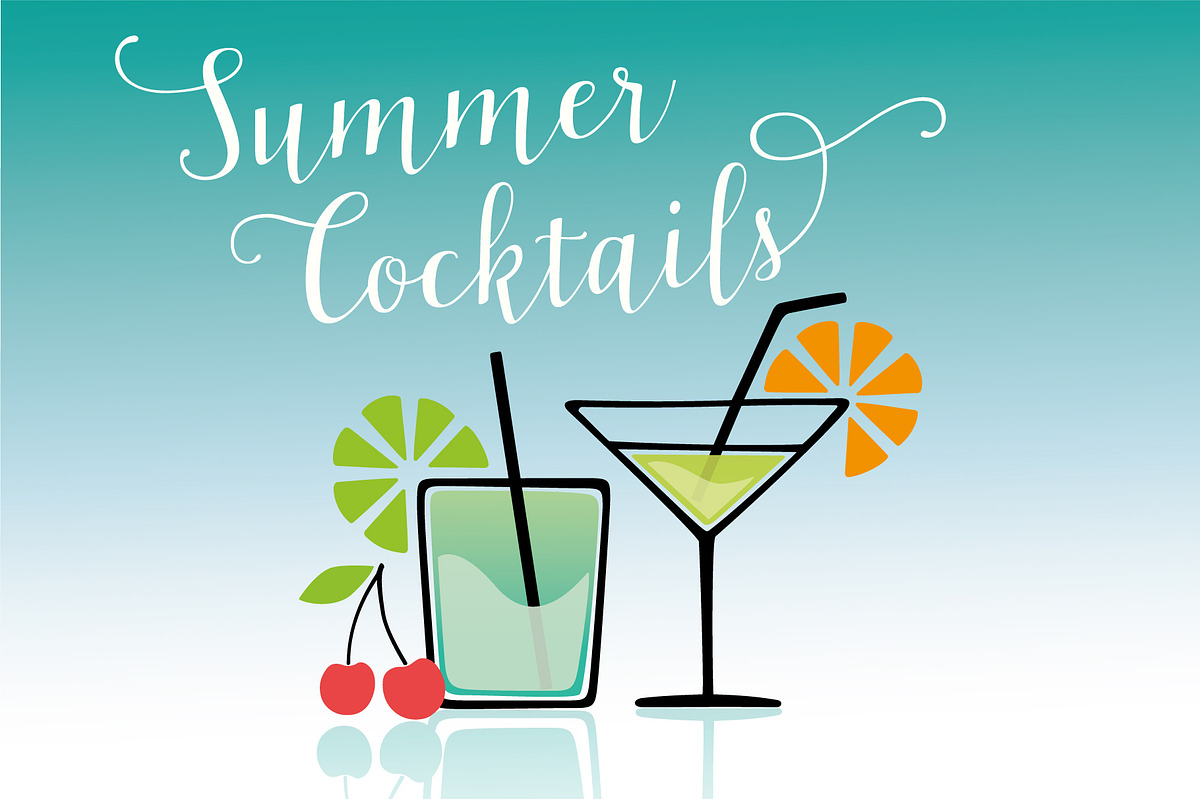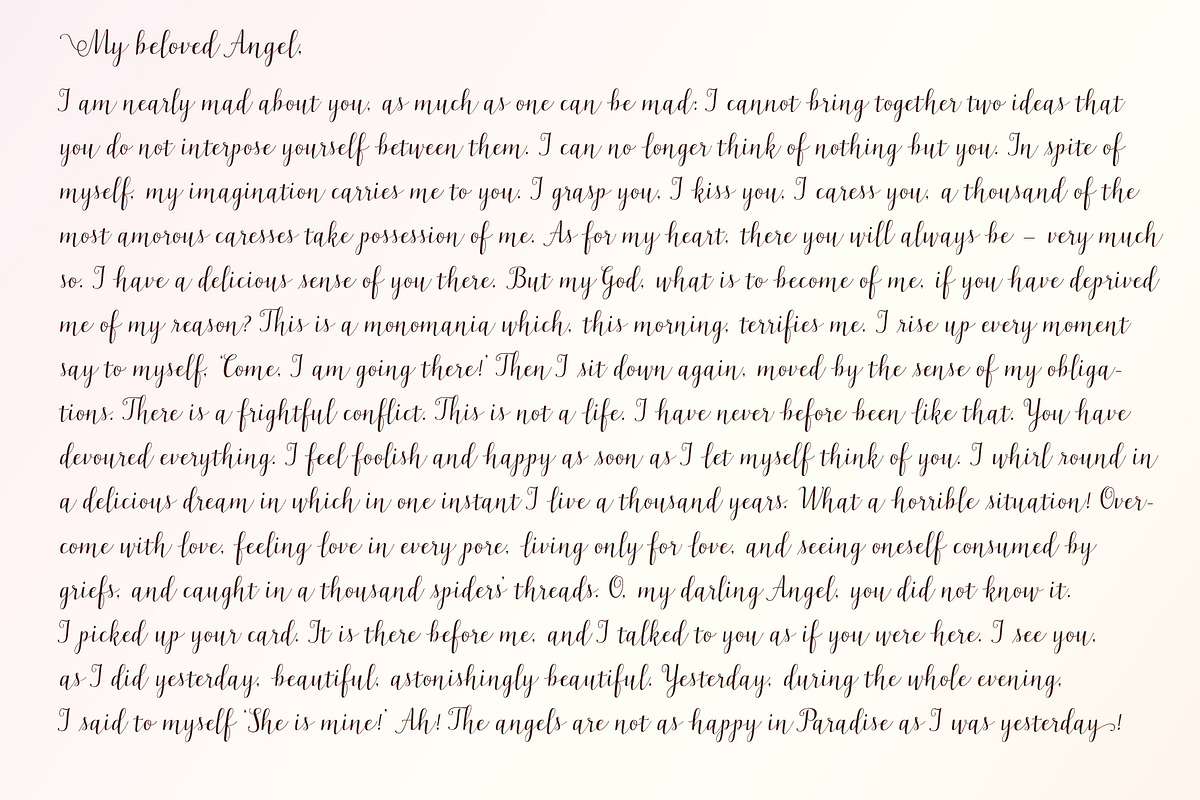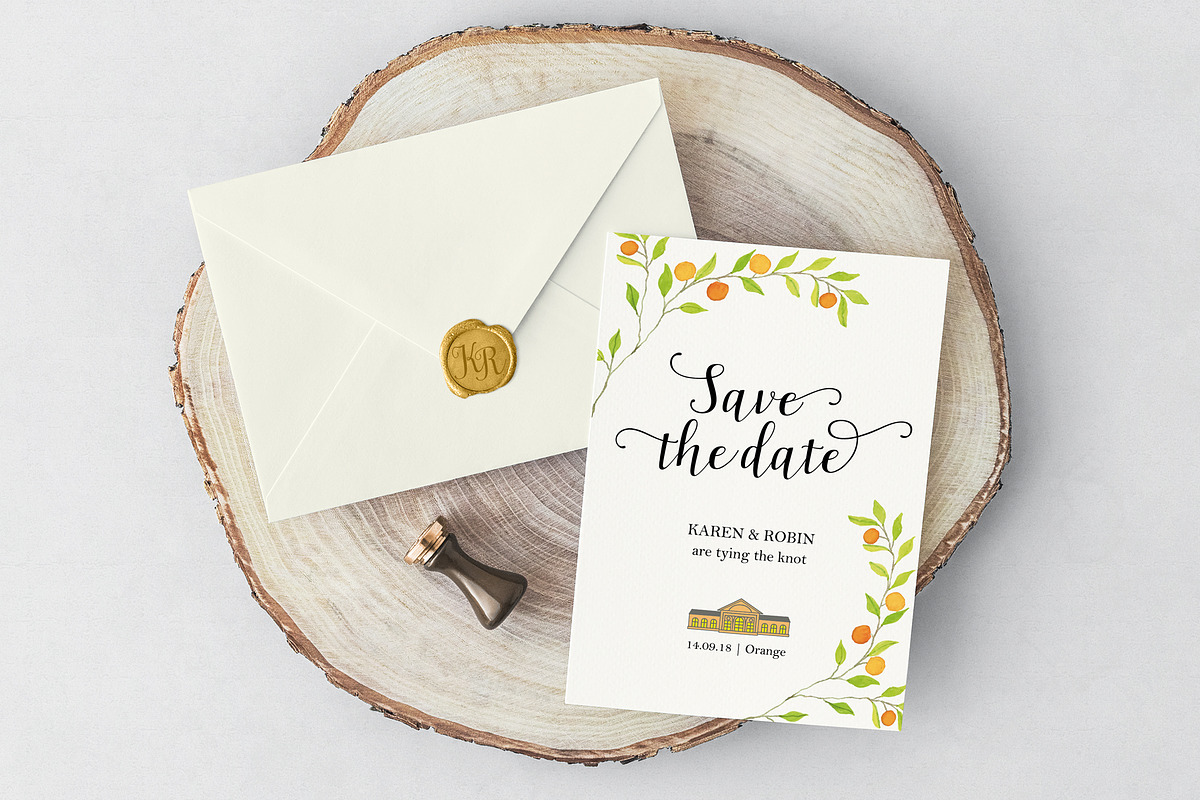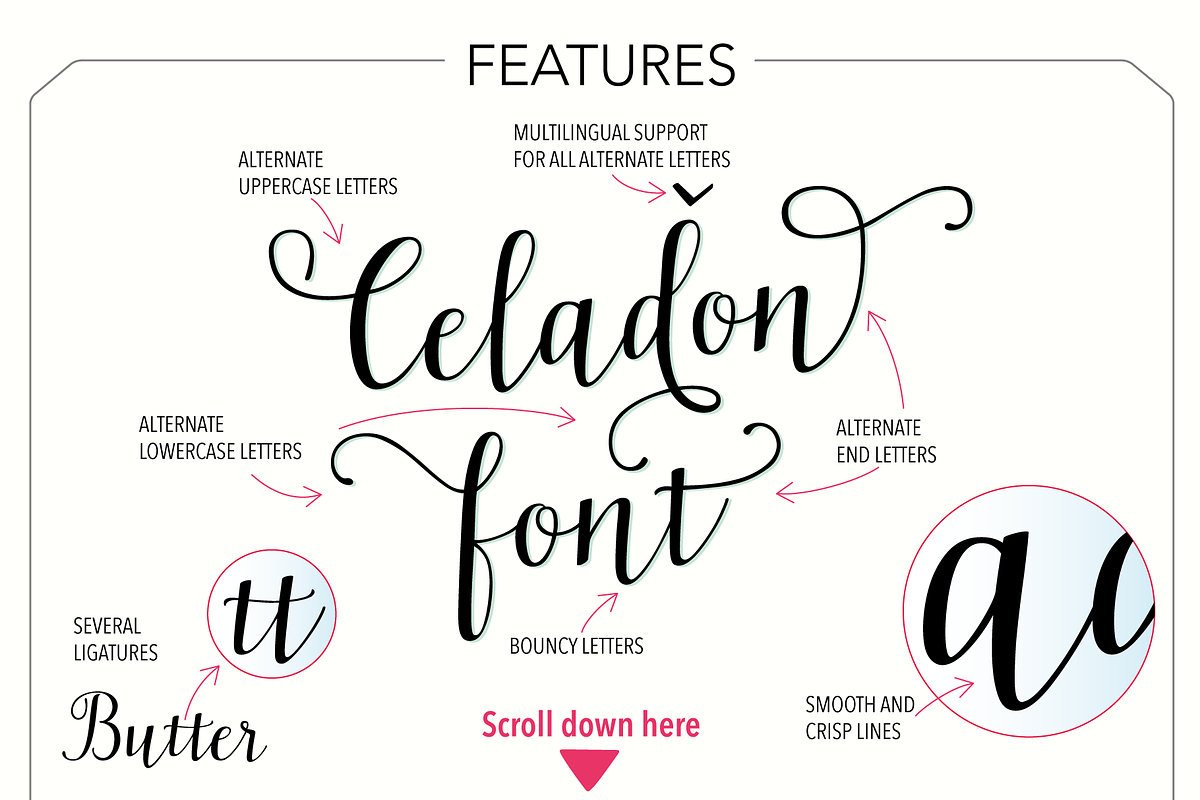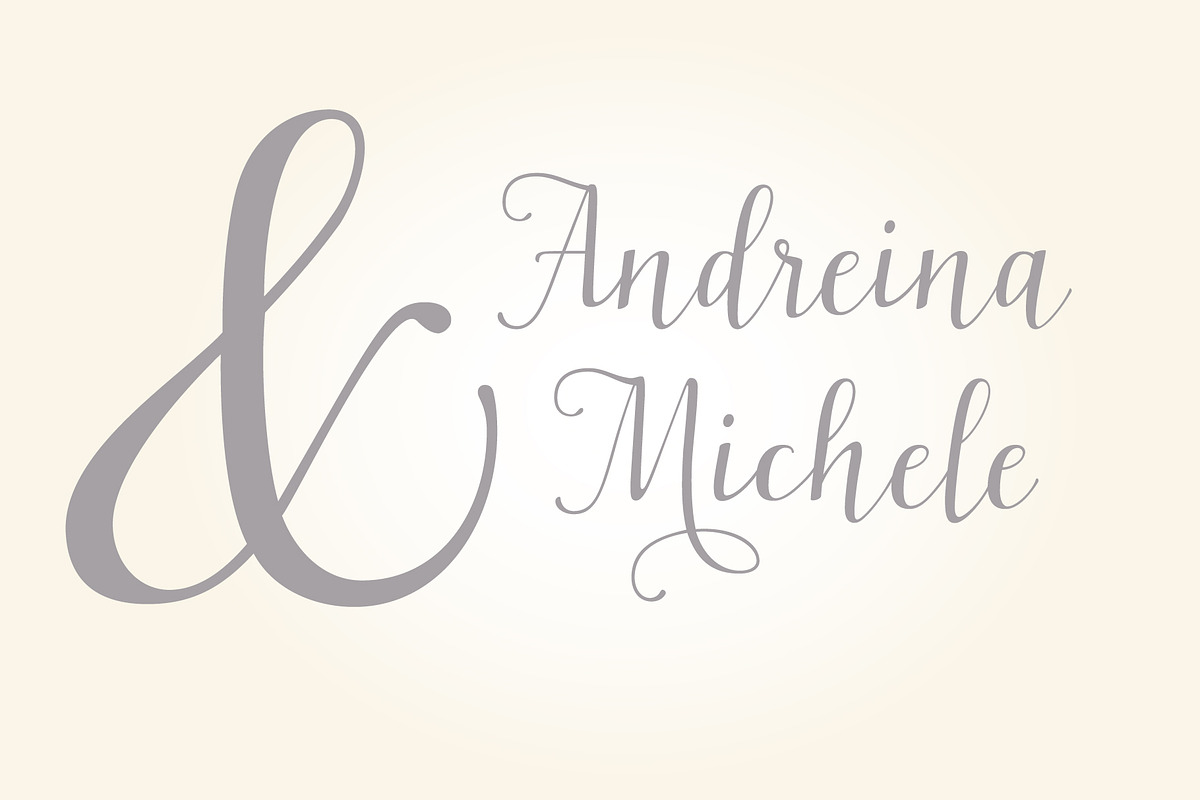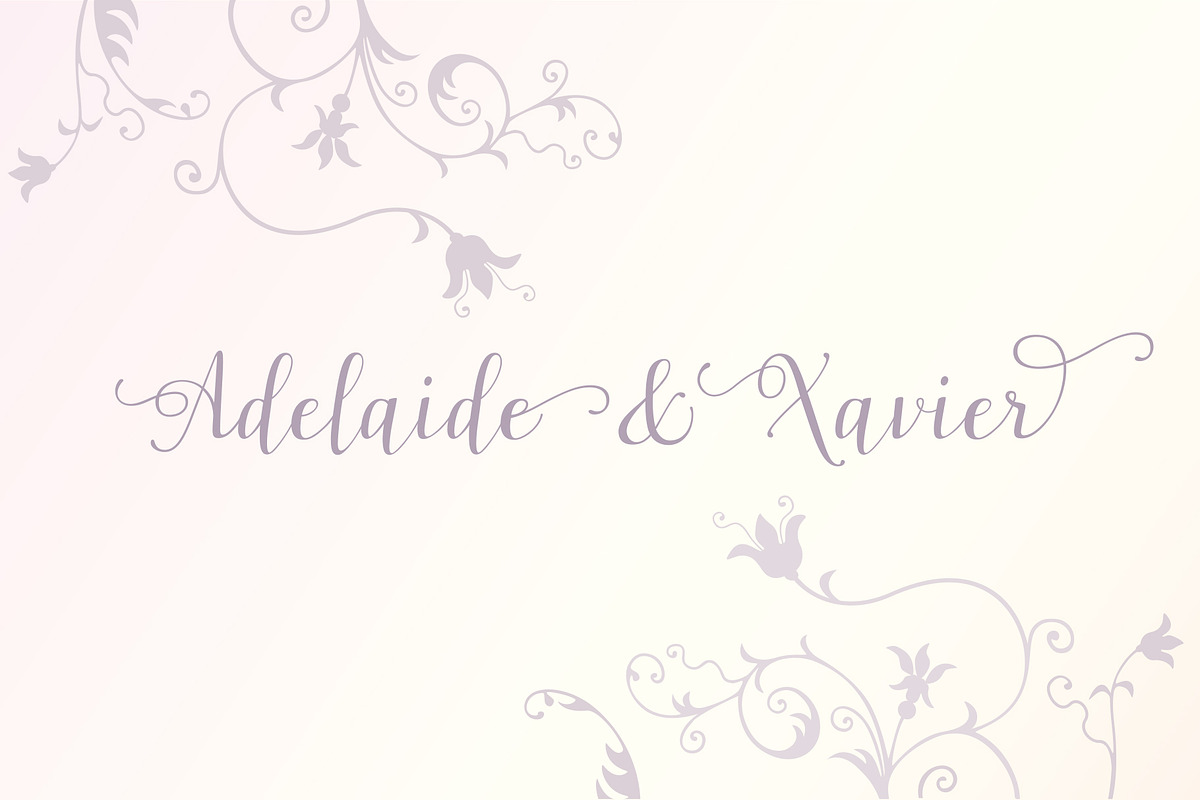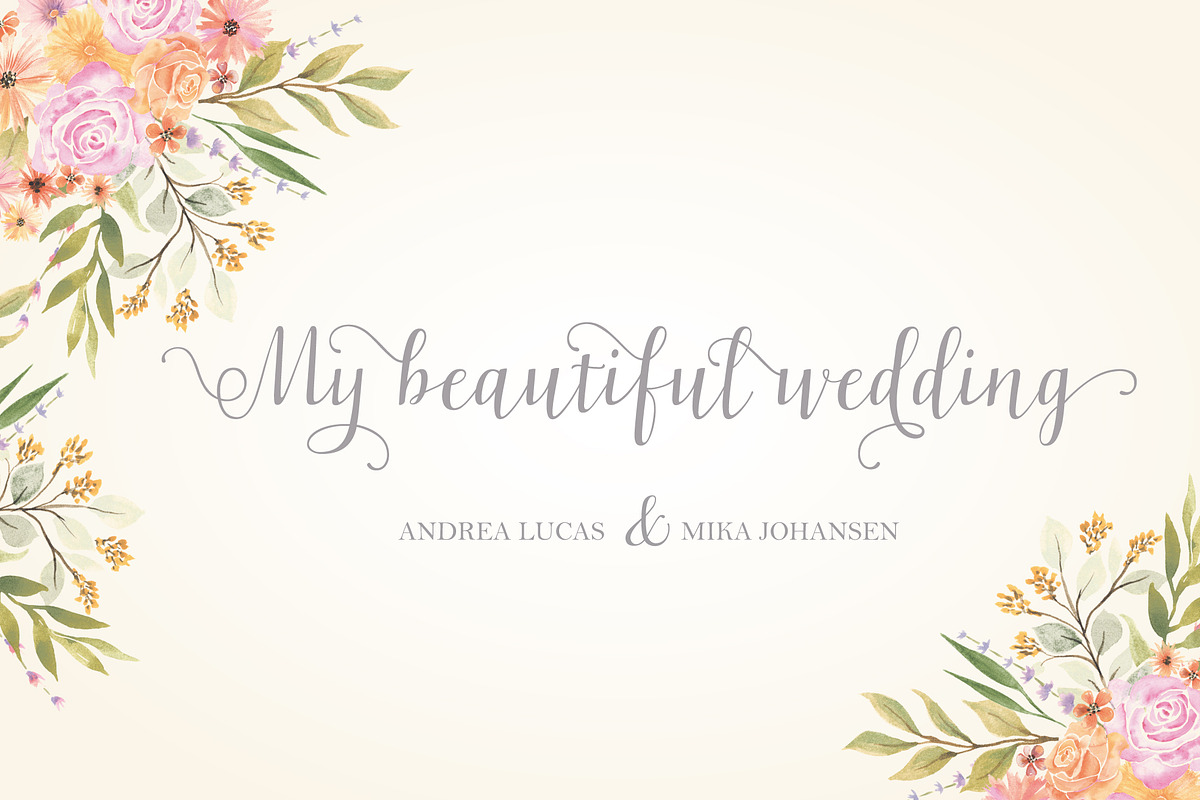
Celadon Modern Calligraphy Font
Celadon is a Modern Calligraphic Script Font based on letters written with a pointed pen. Celadon is elegant with high contrast between thick and thin lines. It has a slightly bouncy style but is still very well balanced and classic. The flourished alternate letters adds that little extra touch to your invitations and projects. You can add them at the beginning or the end of a word or text block, many of them also work to put in the middle of a word. All the alternate letters are also availabele with the diacritics for all European languages. Here is a video I made to show how easy it is get access to the alternates in Adobe Illustrator:
Uppercase Script Letters
Lowercase Script Letters
Numerals and Punctuation.
All the letters have one or more Contextual Alternate Flourished Letters.
13 Standard ligatures.
- Multilingual support (Diacritics) is included for all European languages.
- All the alternate letters are also availabele with the diacritics for all European languages.